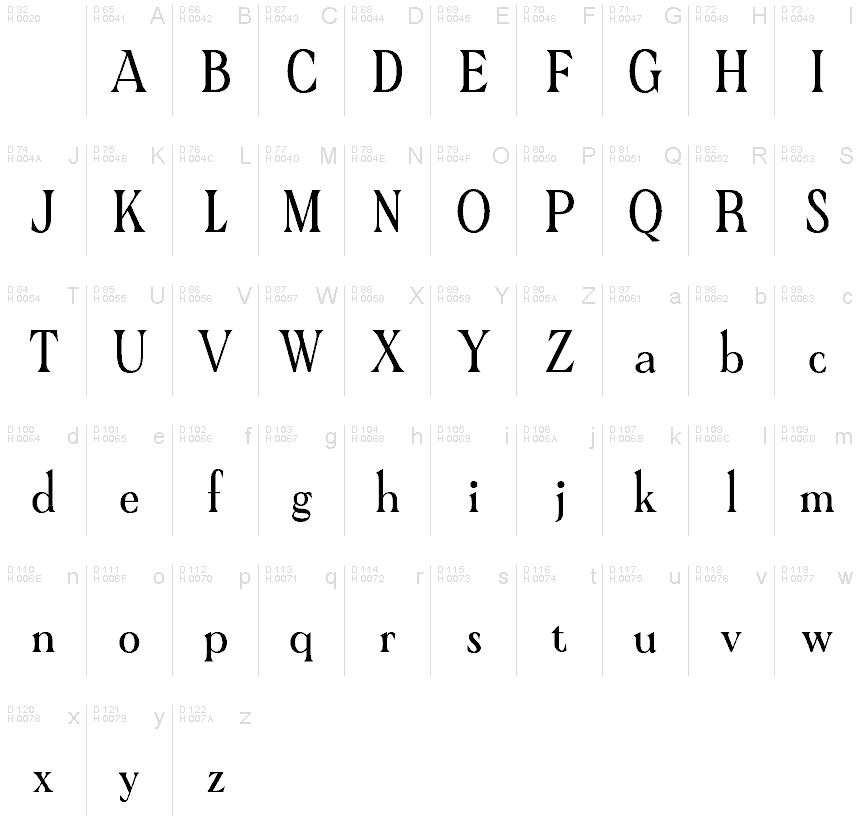
CS Chizue Regular Demo
CS Chizue font by Craft Supply Co. is an elegant and refined serif typeface that holds a sophisticated appeal. Its classic influence brings a timeless charm while maintaining an updated and stylish look, making it suitable for many different design purposes.
This free serif font finds countless use cases for branding, social media, magazines, packaging, shirts, printed merchandise, posters, stationery designs like invitations or business cards, logos; etched signs; or as mood implementation in interior spaces such as restaurants that would like to have wall quotes.